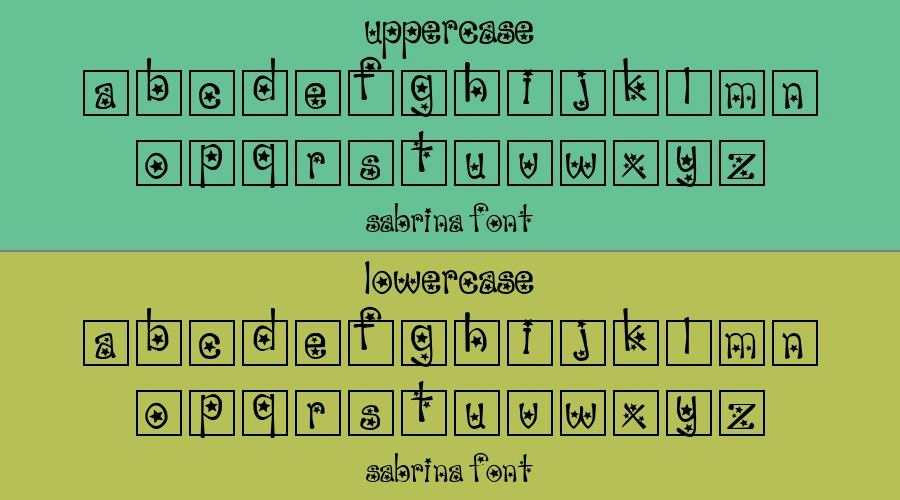
About sabrina Font
sabrina Font embodies typographic excellence through its masterful combination of rounded apexes and durability. Created for government publications, this typeface delivers exceptional precision and cultural relevance across all applications. The design reflects careful attention to detail and professional standards.
Advanced capabilities include distinctive flared stems and versatile numerator/denominator, giving designers creative control. When used in section headers, sabrina Font exhibits remarkable consumer preference. The harmonious balance between proportion and design lineage sets this typeface apart.
sabrina Font |